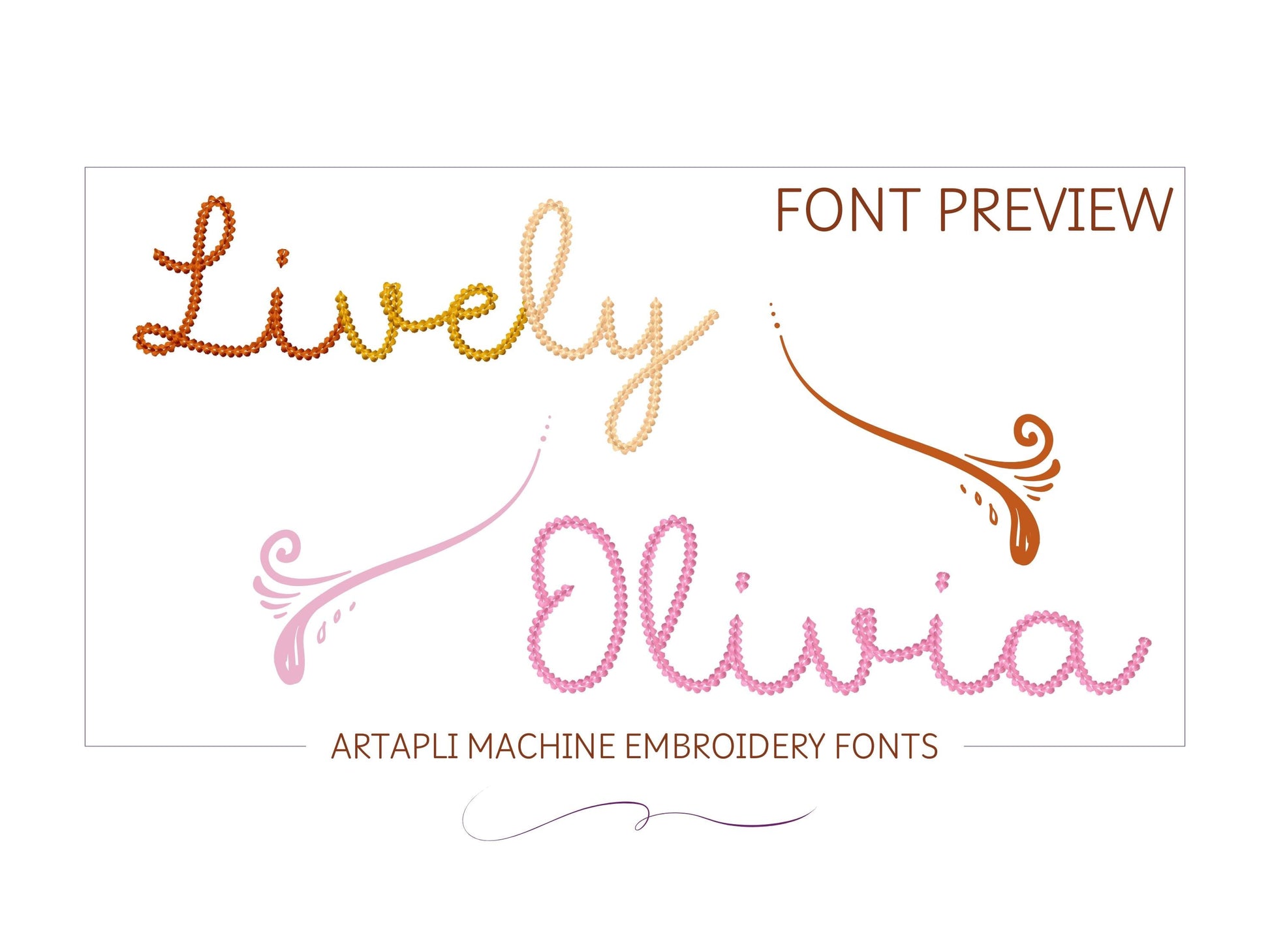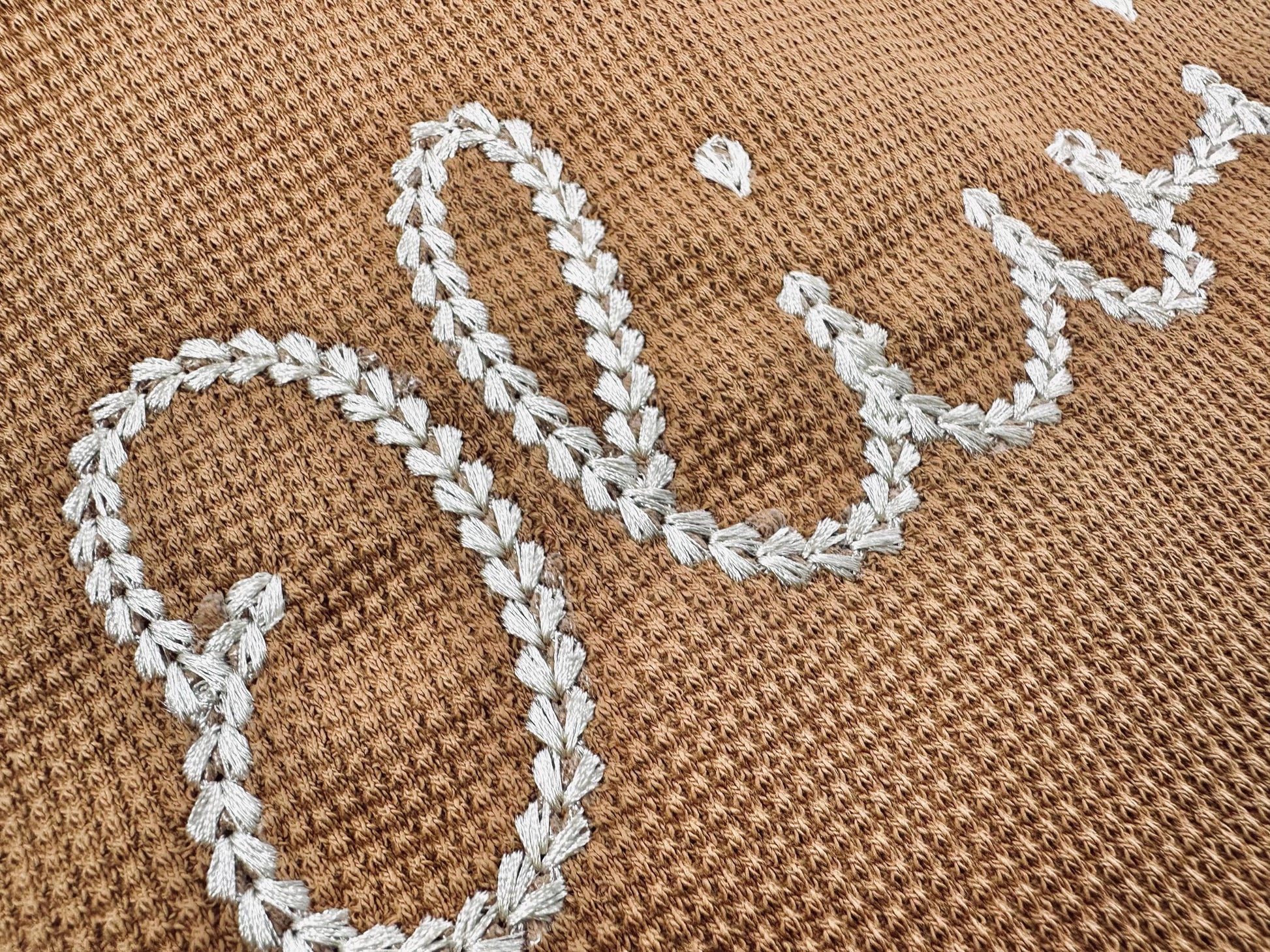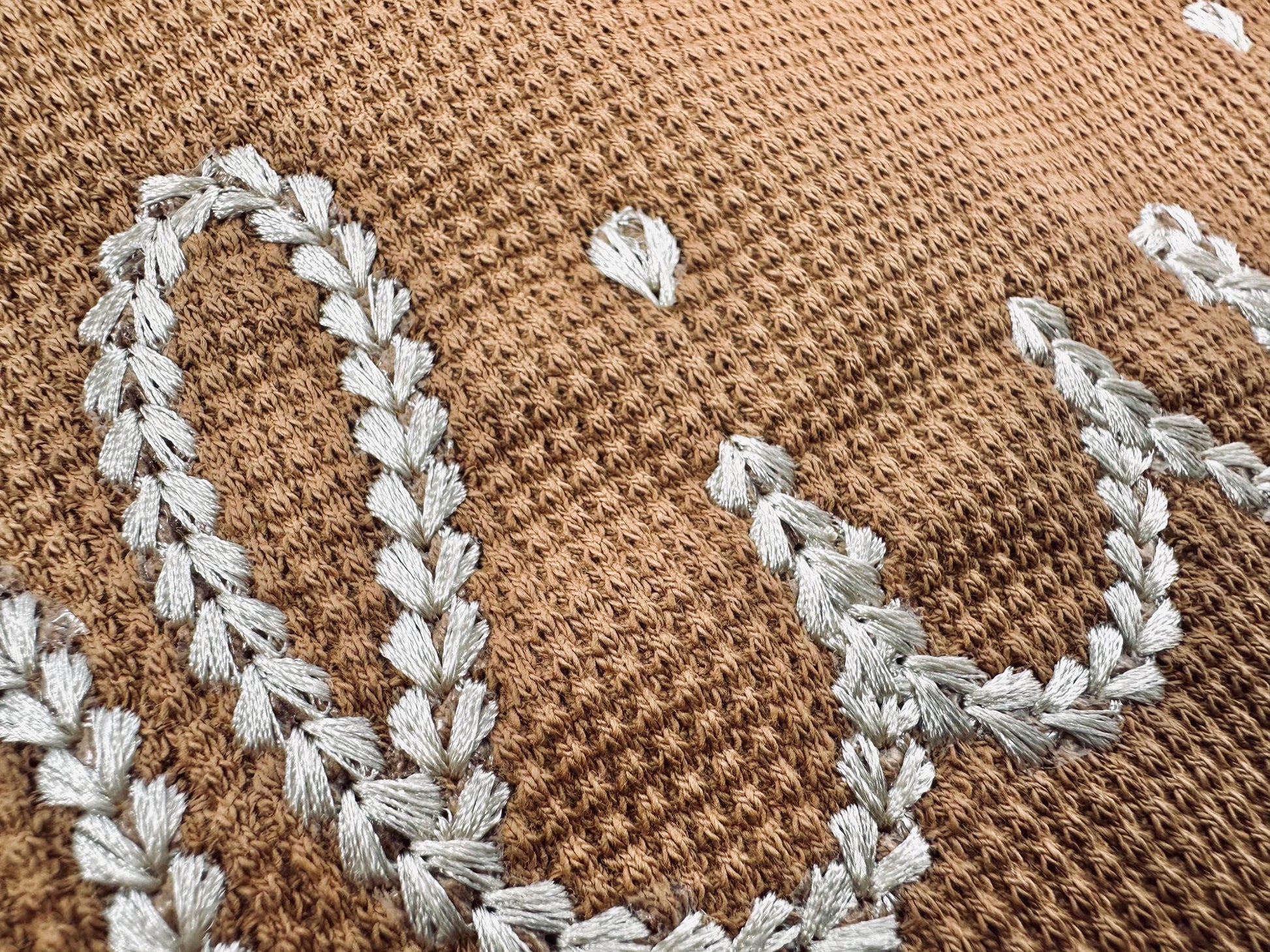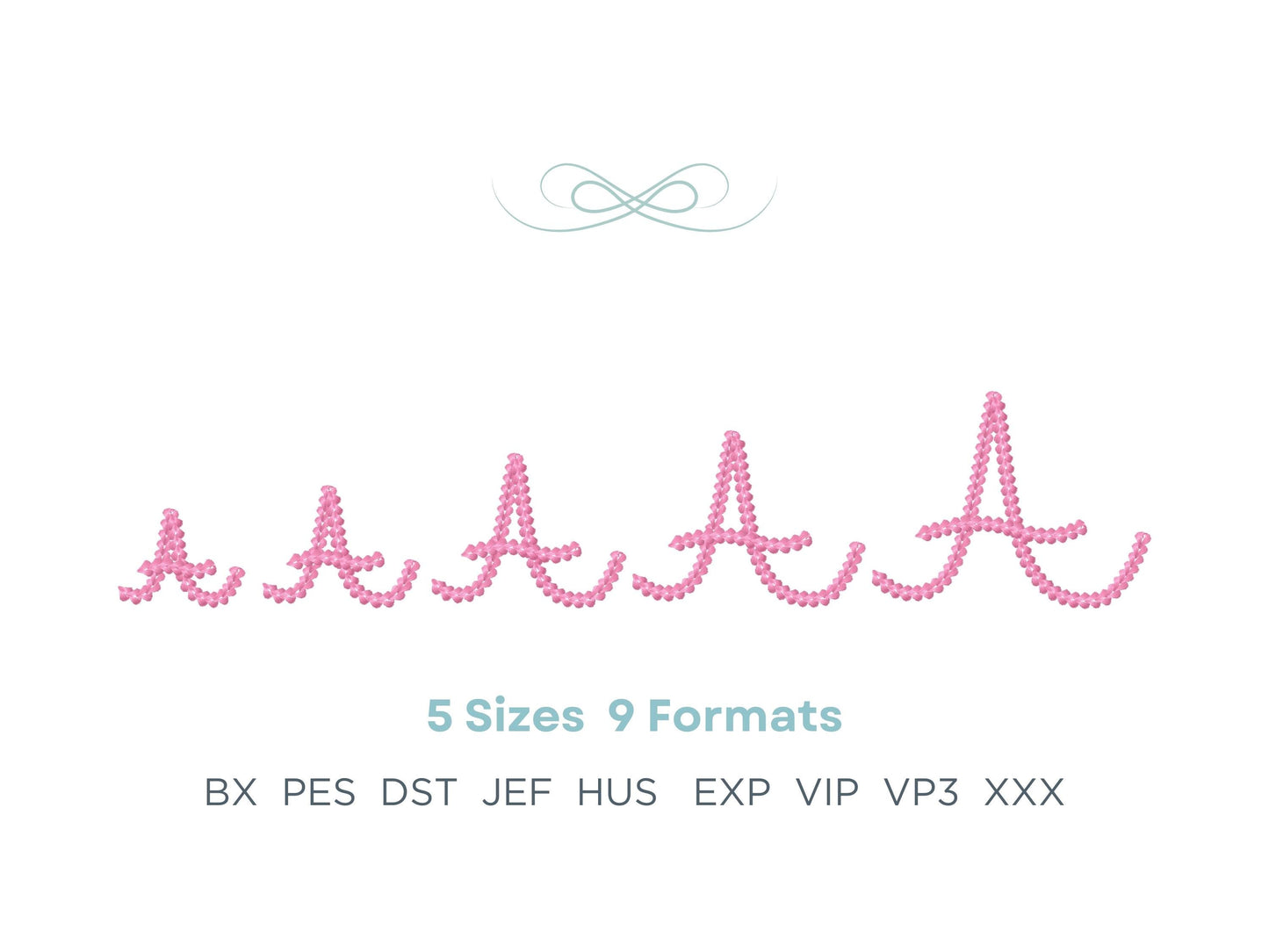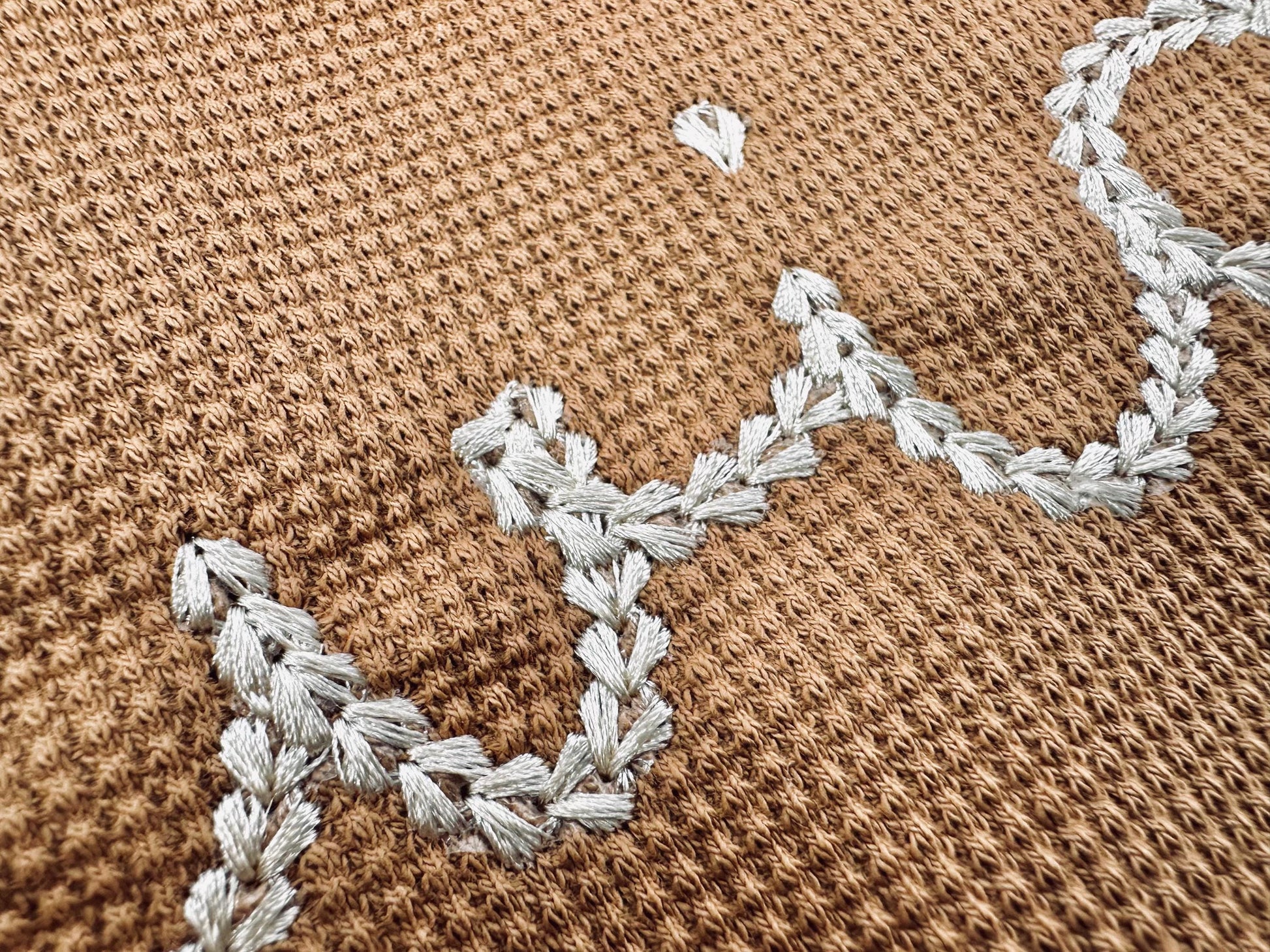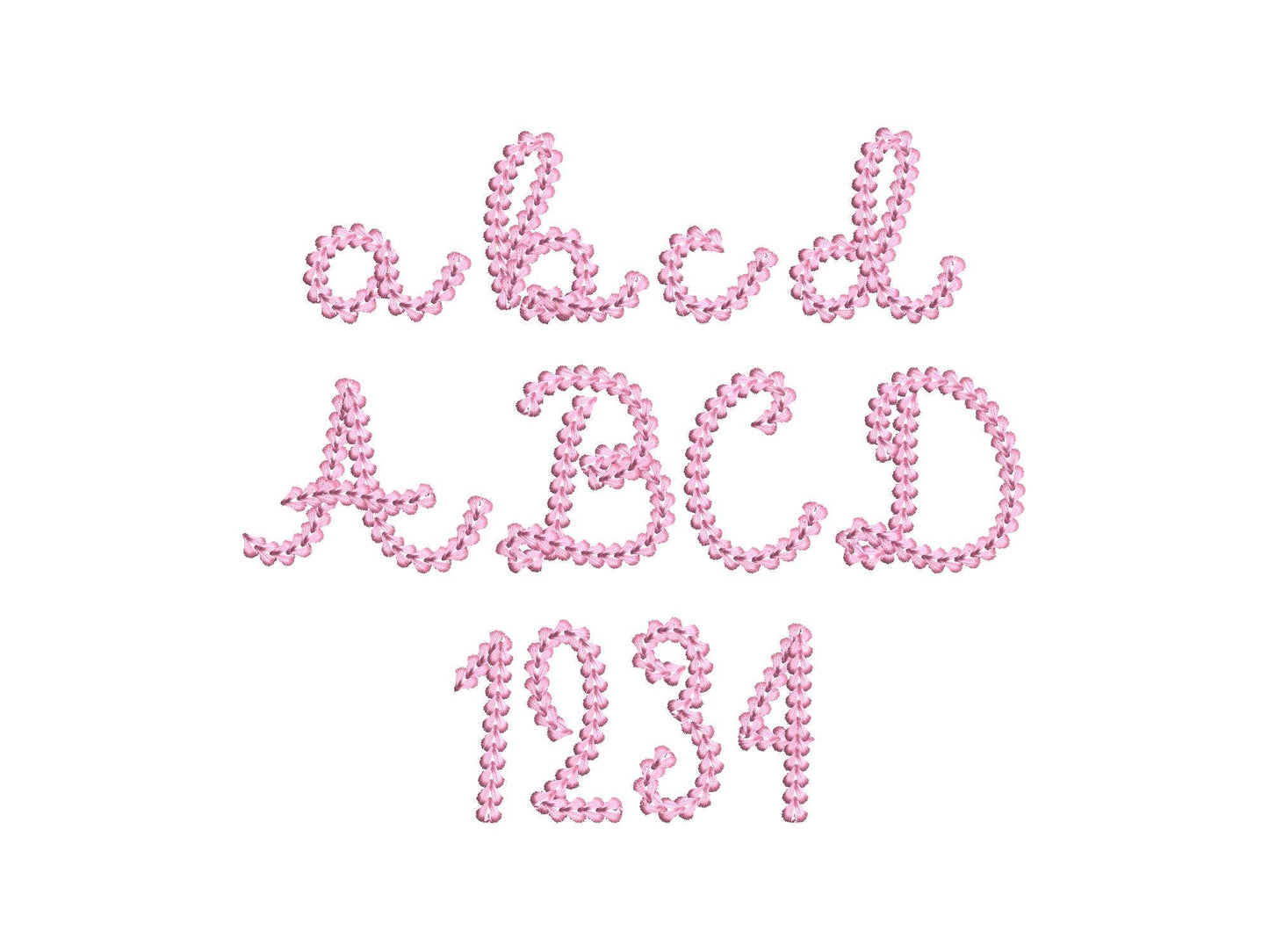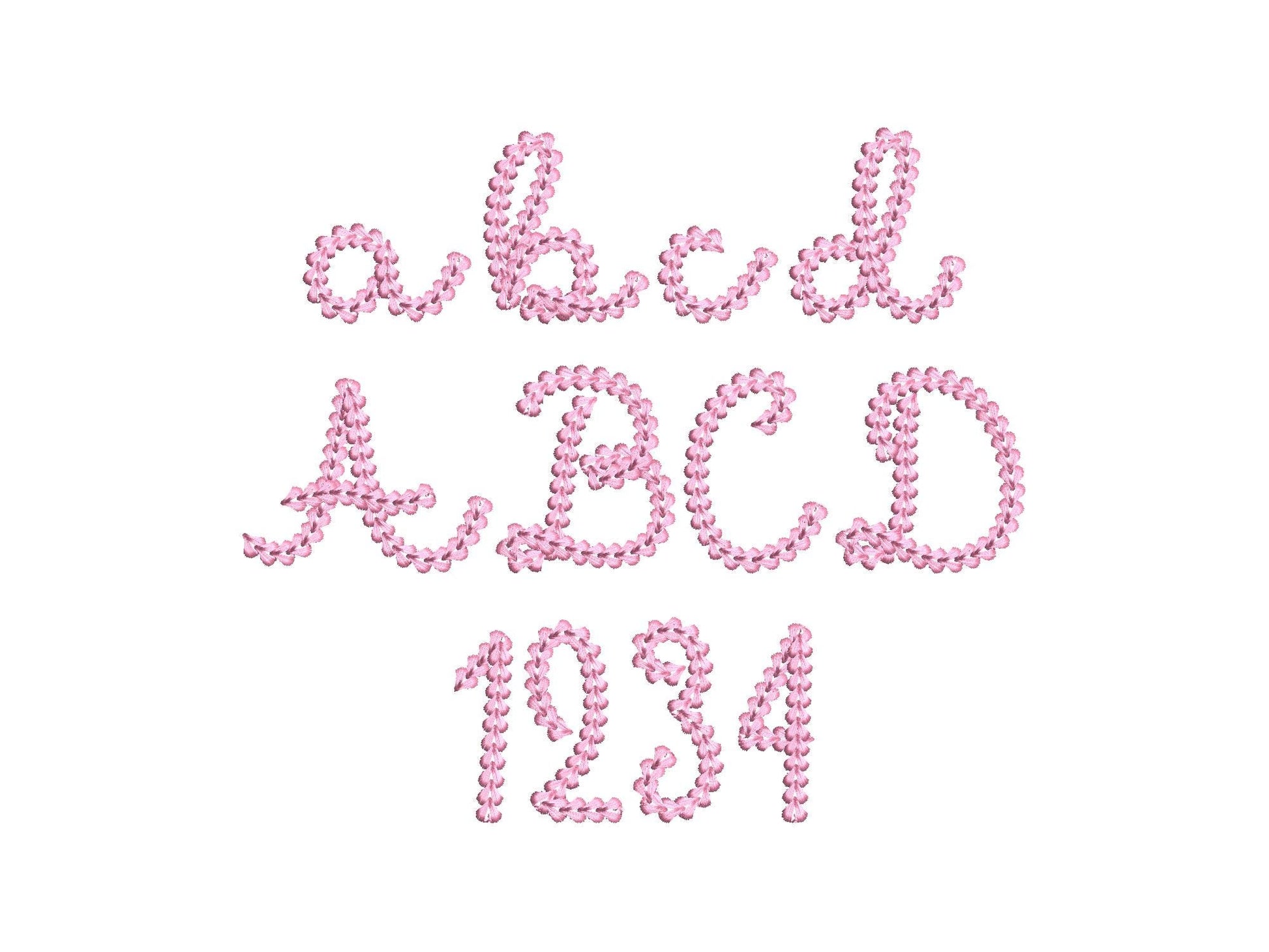
Or click to open the linkAn extra bold, thick chain stitch script with a hand-knit sweater look, for names on sweaters, jackets and bags.
Uppercase and lowercase letters and numbers in five sizes: 1.8, 2.2, 2.8, 3.2 and 4 inches.